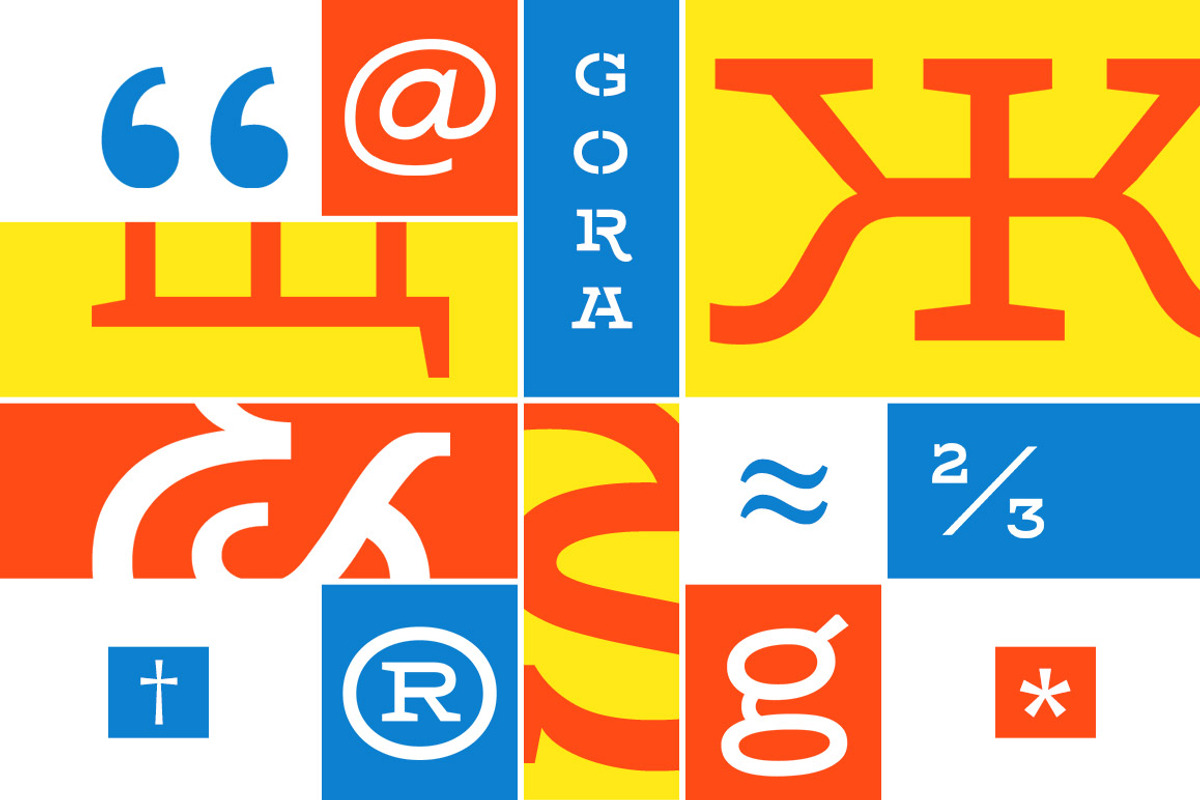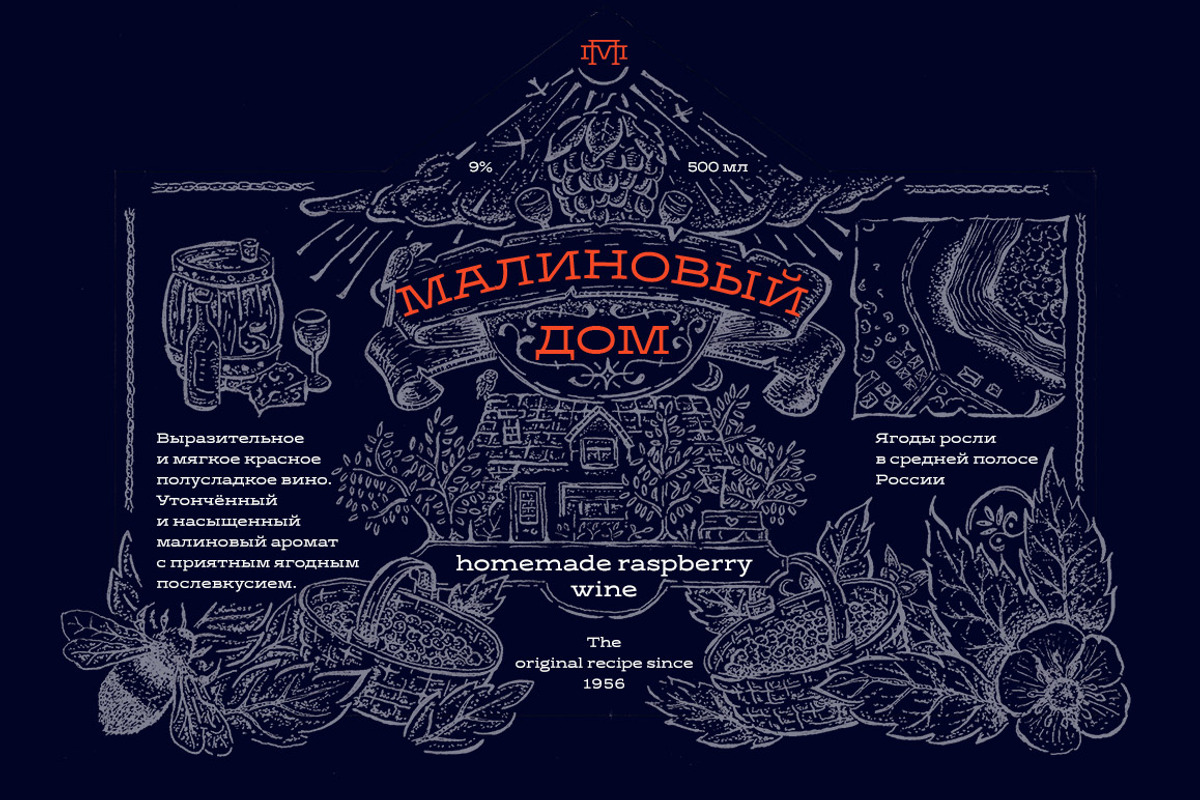
Gora – full pack
Typeface «Gora» — a cute, original extended Slab Serif in 5 weights: Regular, Bold, Stencil Regular, Stencil Bold and Rough. «Gora» includes many features: ligatures, fractions, numbers, subscript and superscript numbers, arrows, and currency symbols. Multilingual.
Excellent choice for headlines and small amounts of text, logos and illustrations, labels and packaging.
Type features
- Fractions
- Superscript
- Subscript